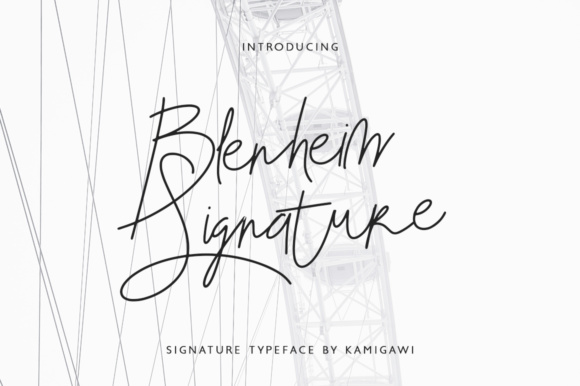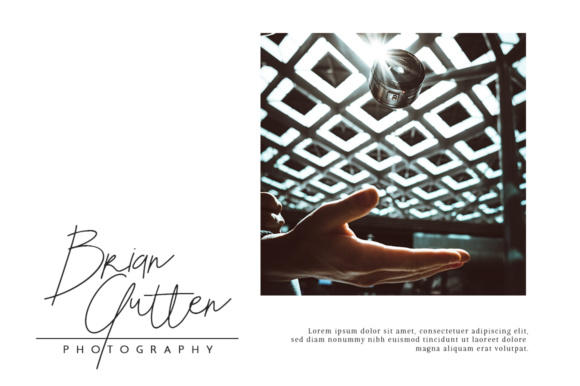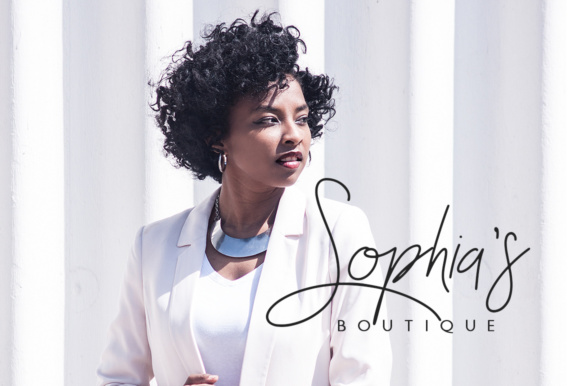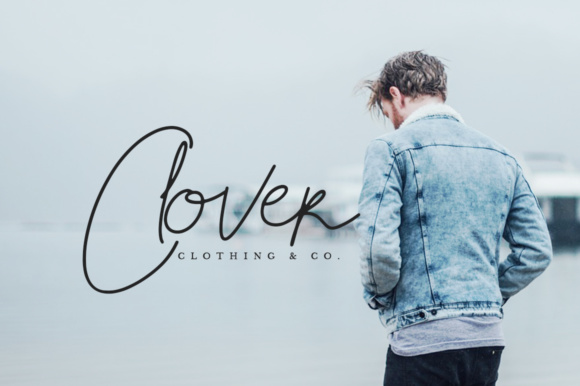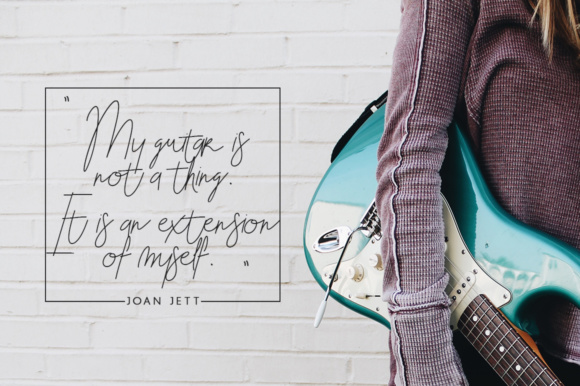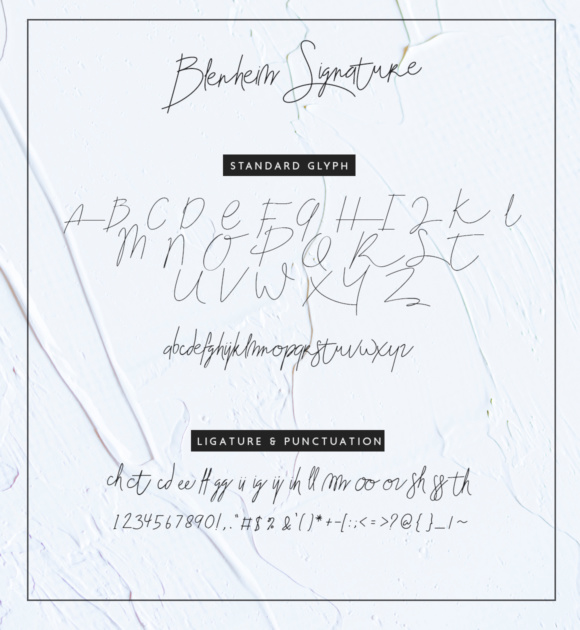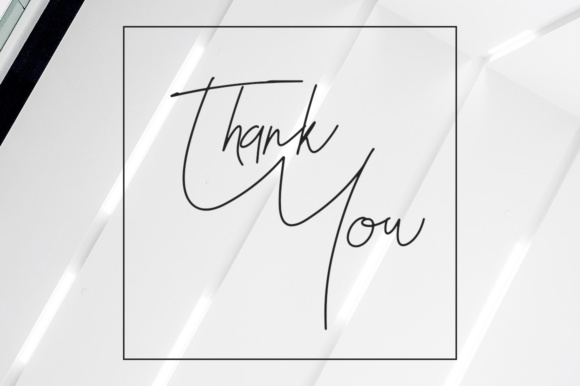
Blenheim Signature Font
About Blenheim Signature Font
Blenheim Signature is a classy and minimal signature font, perfect for use in projects that need a personal flair! This font can be added to both modern, minimal designs or classy, sophisticated designs as a title or logotype font.